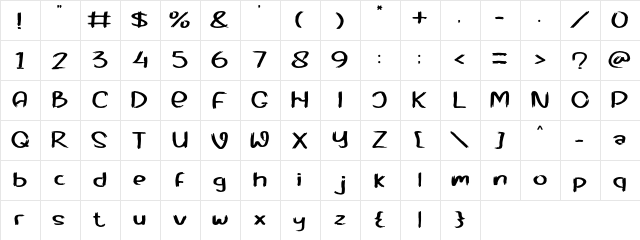
Halloween Movie Regular
Design Context for Halloween Movie Typeface
Halloween Movie is a composed and adaptable typeface that performs quietly and consistently across a wide range of design contexts.